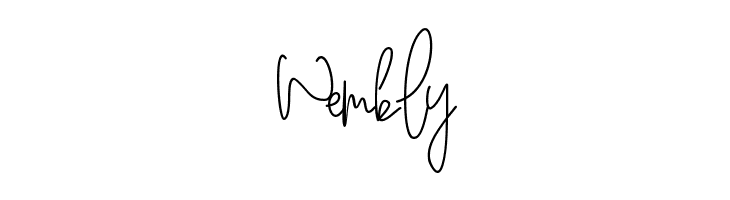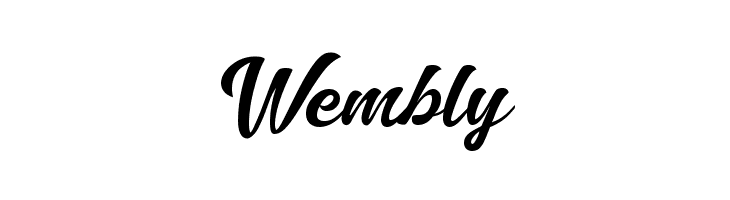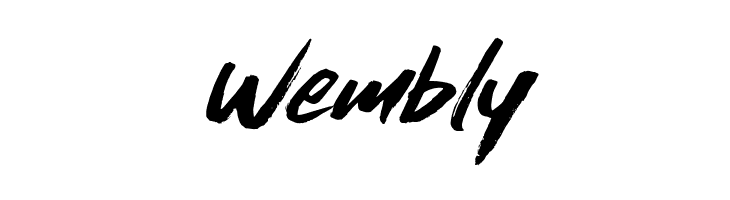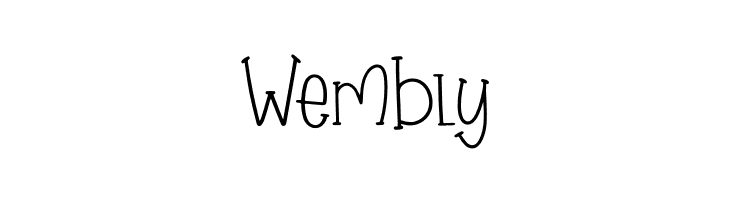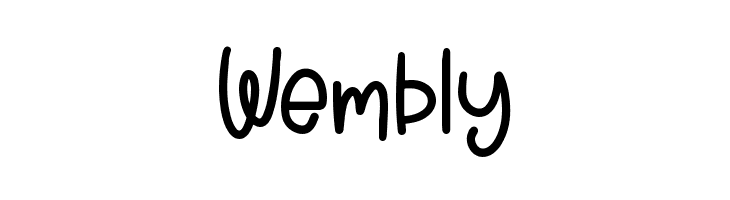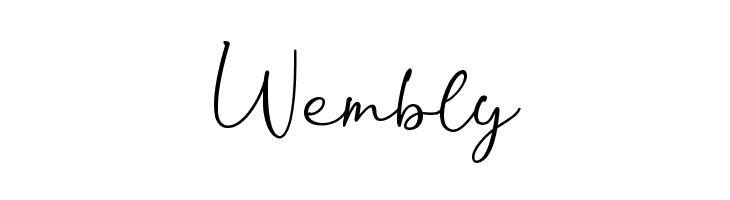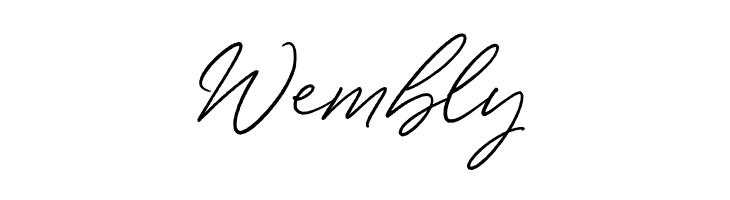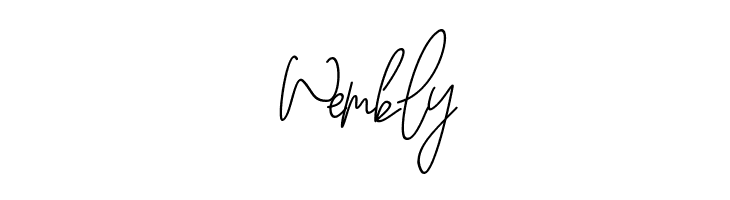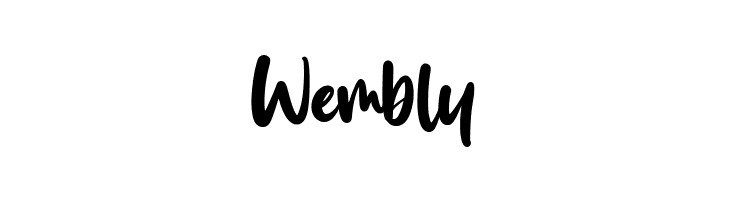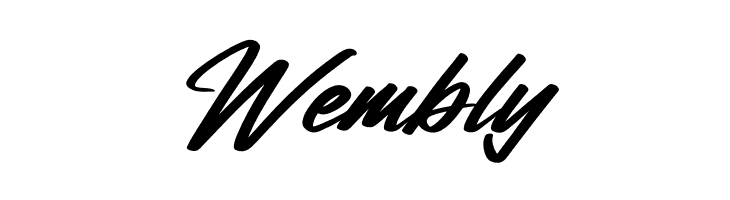
A fluid and elegant script font with a natural handwriting style.
A bold, italicized cursive script with a dynamic and fluid style.
A graceful, handwritten script font with a luxurious and artistic style.
A bold, flowing script font with elegant curves and interconnected letters.
A bold, brush-style font with dynamic and expressive strokes.
A lively, cursive font with bold strokes and elegant curves.
A dynamic and elegant script font with a modern, italic style.
A bold, expressive brush script font with dynamic strokes and artistic flair.
A delicate, elegant script font with a handwritten style.
A bold, brushstroke font with an energetic and artistic style.
A playful, handwritten font with a whimsical and friendly appearance.
A playful and flowing script font with elegant curves and smooth connections.
Decorative script font with festive, swirling monogram style.
A playful, hand-drawn font with a whimsical and informal style.
Ornate winter monogram font with festive illustrations.
A playful handwritten font with smooth, flowing strokes and a casual vibe.
A bold, playful script font with a hand-drawn, whimsical style.
A playful handwritten font with a casual, friendly style.
A graceful and elegant script font with flowing lines and decorative curves.
Casual handwritten script with playful loops and fluid strokes.
Casual handwritten sans-serif with playful, rounded forms.
Expressive handwritten display font with playful, irregular forms.
A bold, jagged font with a Halloween-inspired, carved pumpkin look.
Bold, decorative blackletter font with sharp, angular strokes.
A flowing, cursive font with elegant loops and a handwritten style.
A decorative script font with floral embellishments and elegant, flowing letters.
A bold, expressive handwritten font with fluid, cursive strokes.
A lively, handwritten font with dynamic strokes and playful character.
A bold, italic handwritten font with fluid, cursive strokes.
A flowing, cursive handwritten font with elegant, connected letters.
A playful handwritten font with a casual elegance and modern appeal.
Playful handwritten script font.
A fluid, cursive script font with a natural, handwritten style.